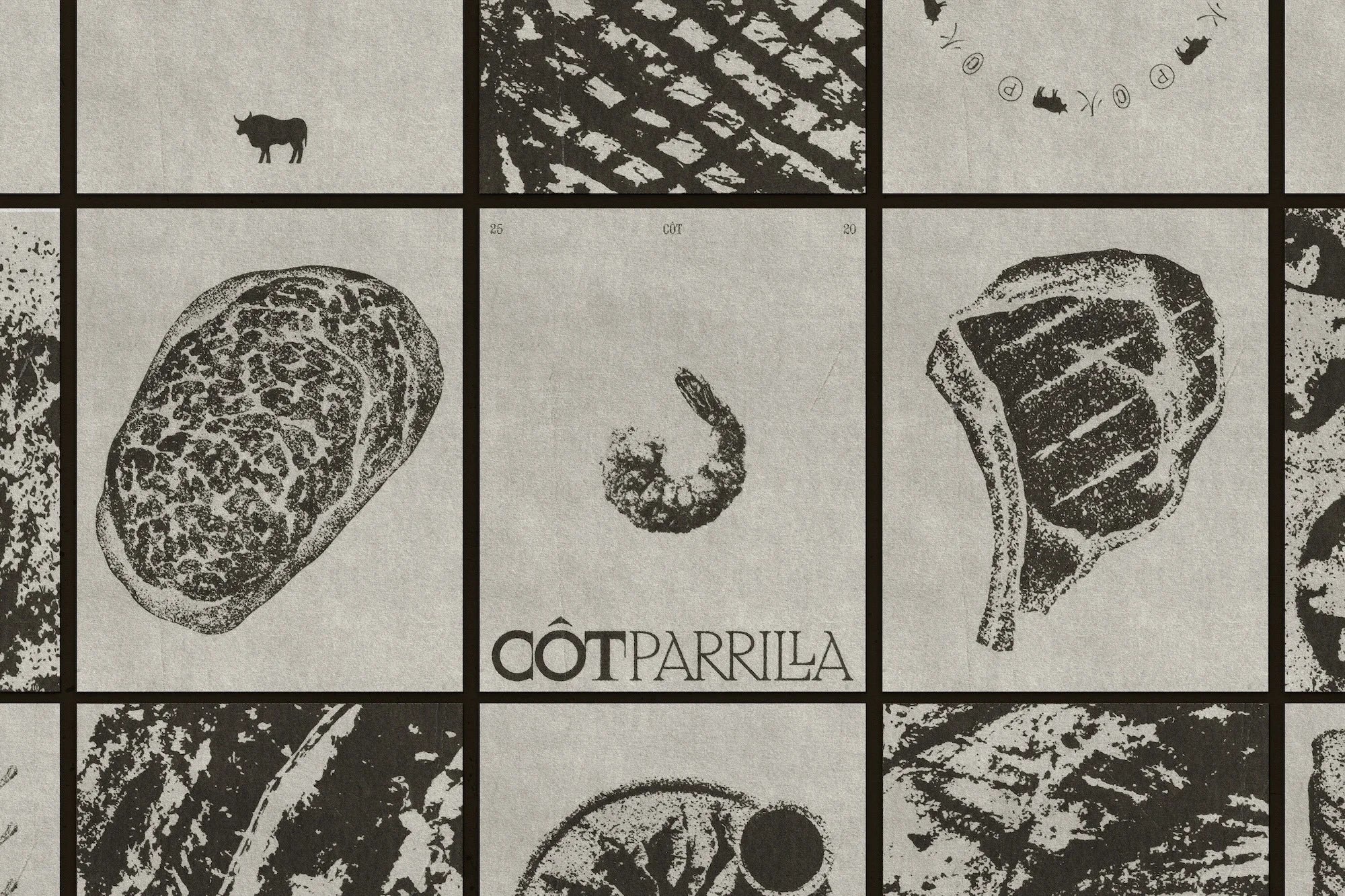
Côt Parrilla
Côt Parrilla is a restaurant in Leblon, a neighbourhood of Rio de Janeiro, that began as a delivery-only ‘dark’ kitchen before moving into a place of its own.
That shift called for an identity strong enough to support the new phase and stand out in a competitive food scene, with the restaurant turning to Brazilian design studio Estúdio Gole to create it.The restaurant’s concept turns on a meeting of East and West: Korean and Eastern barbecue techniques brought to a contemporary parrilla, the Argentine and wider South American style of grill, set against Western cuts and references. The decision that shaped the identity was one of degree – how far to let that meeting show, and how much to hold back.
From the first conversations, the client was clear that the combination “could be the biggest challenge of this project,” Gabriel Miranda, Partner at Estúdio Gole, tells us, so the studio set out to “understand in depth how much of this scale could be expressive or more subtle,” and defined that as “the success factor for this language to work.”
To find the balance, Estúdio Gole studied the local market and international references for real points of difference, steering clear of the easy traps on either side – a dated look or a wholesale East Asian aesthetic on one hand, the standard London steakhouse on the other. “The principle was always to balance these two worlds in a way that would have a harmonious and disruptive marriage at the same time,” Miranda notes.
“We brought aspects that connect the two cultures in a non-obvious way,” Miranda adds. That produced a visual system built on contrast: East Asian textures and gestures, reinterpreted in a contemporary language, set against a cleaner, more structured approach that reinforces the restaurant’s positioning.
The system is at its sharpest in the wordmark, which sets CÔT in a high-contrast serif. “The idea of the logo is to have this high contrast like a knife; we made the logo thinking about this idea of cutting, and the name itself recalls this abrupt cut, ‘Corte’ in Portuguese,” Miranda details. “The logo font comes from the ABC Arizona Sans structure, and in this case, we stylised it completely to convey the idea of the cut and knife,” he continues. The circumflex over the ‘O’ earns its place too. “The accent is there to give a better intonation to the pronunciation of the name, so it was something more functional than artistic,” he explains.
Across the rest of the identity, the studio uses ABC Arizona Mix, Dinamo’s more serifed cut, alongside Xanh Mono, Yellow Type’s monospace. The aim, Miranda reveals, was “to create a more visually noisy character, reminiscent of vintage writing and bringing a welcome ‘dirtiness’ to the project.”
The Eastern side of that contrast is visible in the illustration through a family of beef cuts the studio drew in the manner of East Asian woodblock prints. “We prioritised papers that responded very well to this style; any texture is very welcome in this language,” Miranda recalls. The system also takes in a set of small symbols. “The glyphs in Japanese mean fire and flame, and we brought in the ox as a variation related to food and a strong symbol for the brand,” Miranda observes.
The palette is set to six colours. “We chose more earthy tones and not so vibrant ones; we wanted something that would match the restaurant’s architecture and have a very intimate feel to its palette,” Miranda concludes.